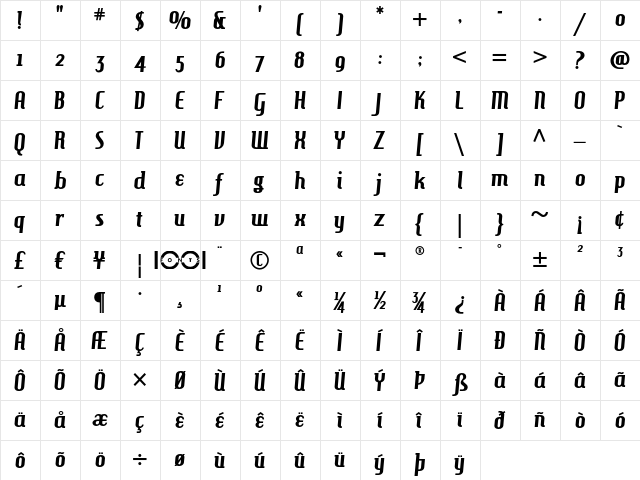
Hamburger Heaven NF Regular
| Foundry | Nick's Fonts |
| Designer | Nick Curtis |
Design Context for Hamburger Heaven NF Typeface
Hamburger Heaven NF takes a measured approach to typography — its balanced proportions and neutral character make it a reliable workhorse for both digital and print work.